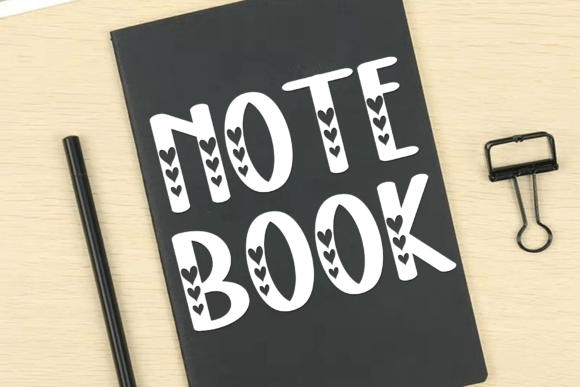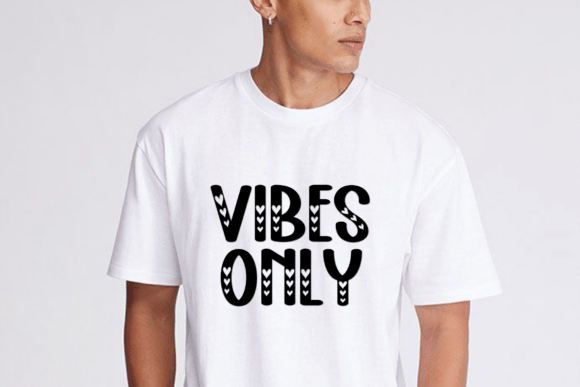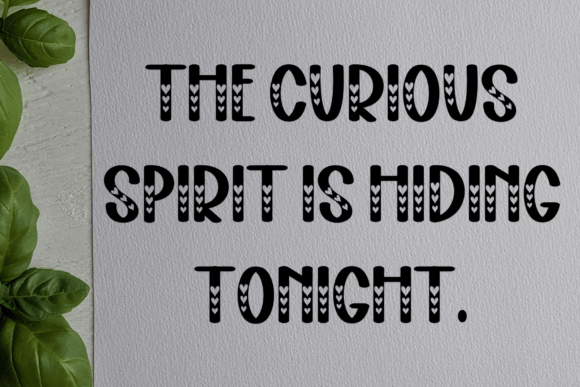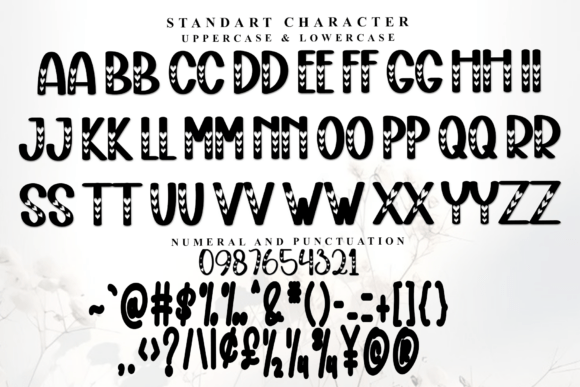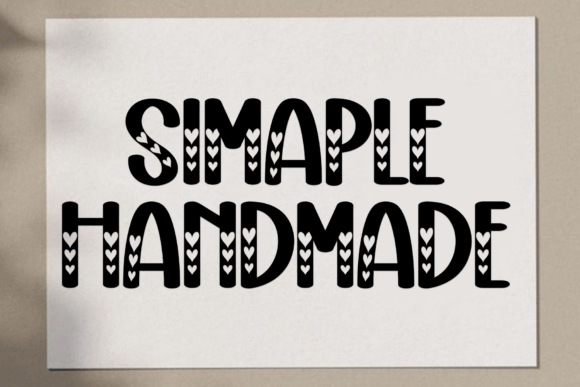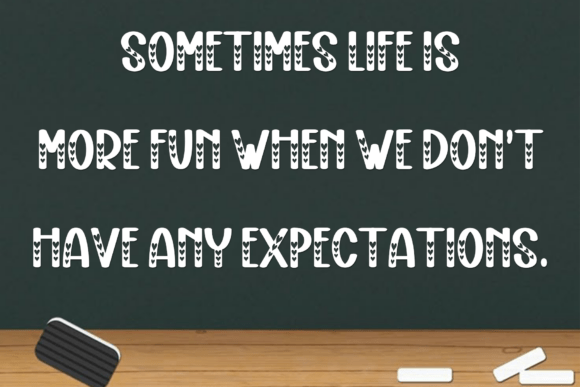
Introduction to Beloved School Font
Beloved School is a sweet and friendly handwritten font.
Key Features of Beloved School Font
Why Choose Beloved School Font?